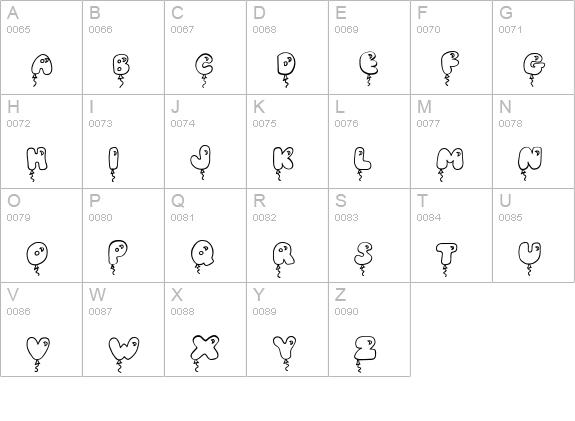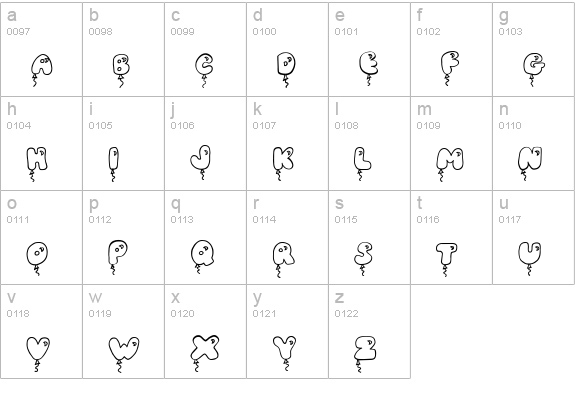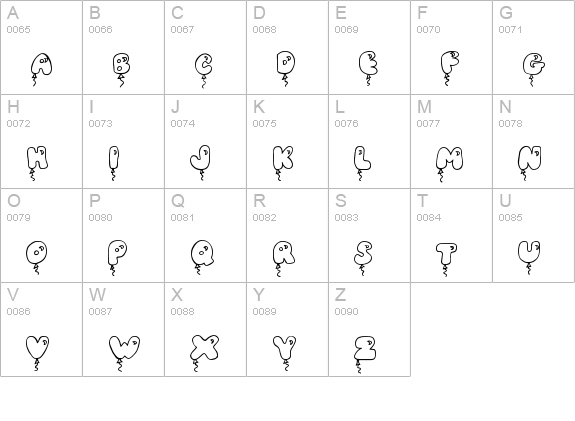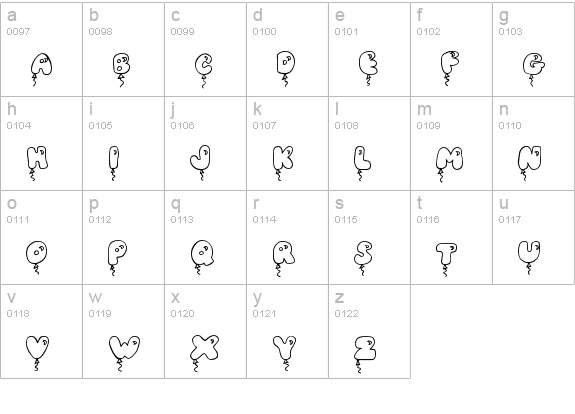
JI Balloon Caps Font Details
Introducing JI Balloon Caps font, a whimsical and playful typeface that is sure to add a touch of fun to any design project. With its rounded and bubbly letterforms, this font captures the essence of balloons floating in the sky, evoking a sense of joy and light-heartedness. Perfect for party invitations, children's books, or any design that needs a burst of cheerfulness, JI Balloon Caps font is a versatile choice that will bring a smile to anyone's face. Its unique and eye-catching design will make your text stand out, ensuring that your message is heard loud and clear. But what makes JI Balloon Caps font even more appealing is that it is freely available to download at FontsMarket.com. Yes, you read that right – this delightful typeface can be yours at no cost! Whether you're a professional designer or a hobbyist, you can enjoy the benefits of this font without breaking the bank. So why wait? Download JI Balloon Caps font today and let your creativity soar. With its playful charm and free availability, this font is a must-have for anyone looking to add a touch of whimsy to their designs. Don't miss out on this opportunity to make your projects truly unforgettable.